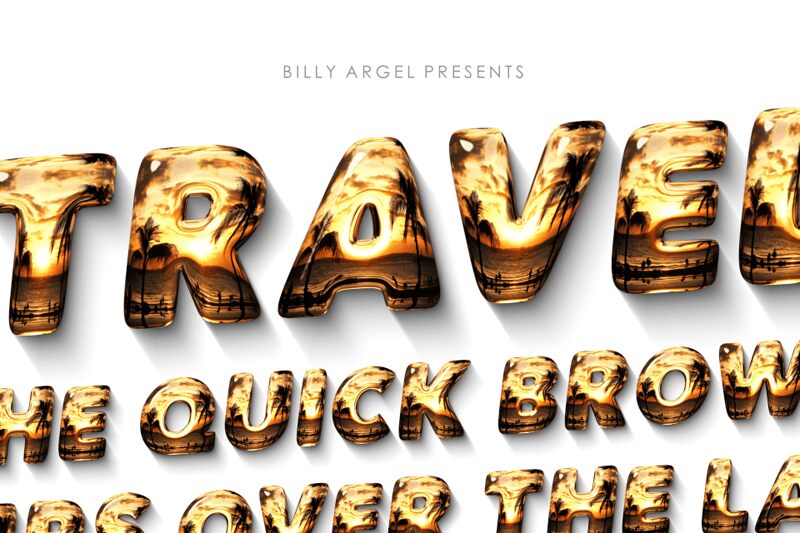
TRAVELIGHT Bold, a decorative and extra-bold font from Billy Argel Fonts, is the perfect choice for projects that demand attention and personality.
Its unique letterforms and thick strokes make it ideal for eye-catching headlines, posters, and advertisements. With its adventurous vibe, TRAVELIGHT Bold adds a touch of excitement to travel brochures, outdoor event promotions, and travel-related websites. This display font exudes confidence and energy, making it an excellent fit for branding projects that require a bold statement.
Stand out from the crowd with TRAVELIGHT Bold!